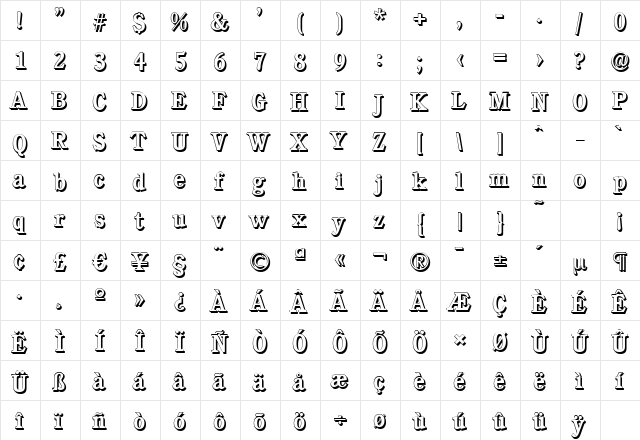
CalgaryShadow-Medium Regular Font Preview
CalgaryShadow-Medium Regular
CalgaryShadow-Medium Regular Font Details
Design Context for CalgaryShadow-Medium Typeface
CalgaryShadow-Medium brings ornamental detail and strong personality to headlines and identities, where visual impact matters more than quiet functionality.
Font Pairing: Pair with a clean neutral sans-serif for body copy to let CalgaryShadow-Medium's character lead without overwhelming the composition.
Pro Tip: Use CalgaryShadow-Medium exclusively at display sizes — it was designed to be seen, not read at length. Let a neutral companion handle body copy.